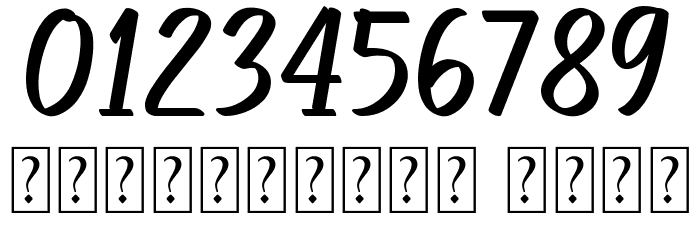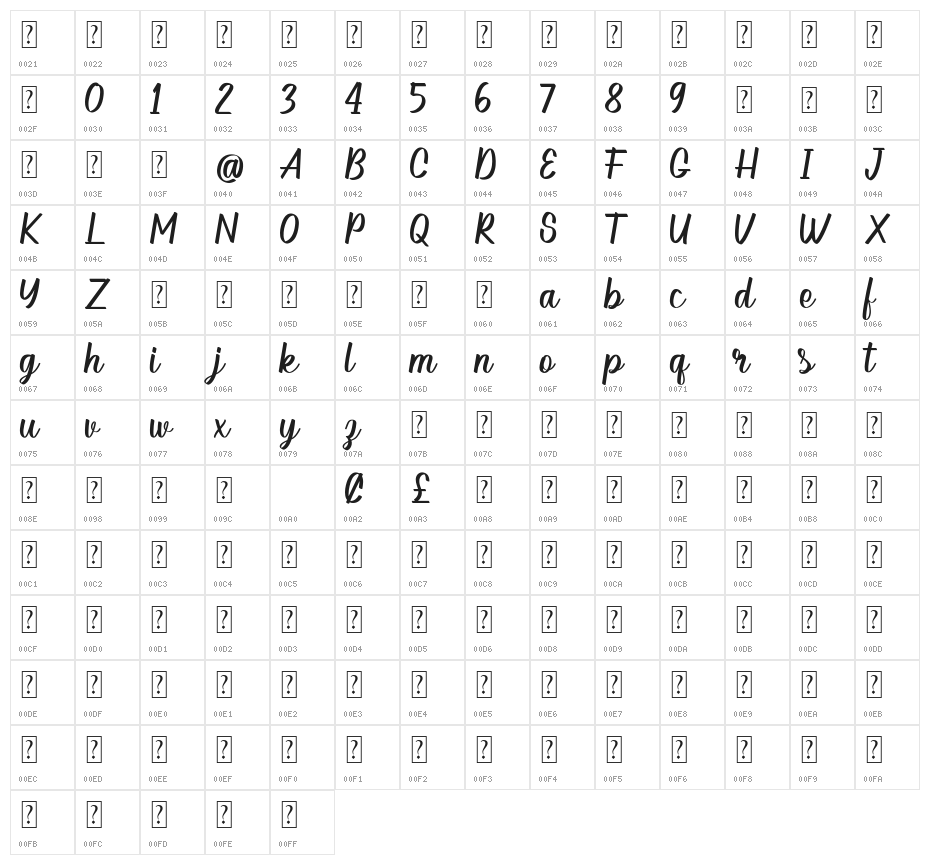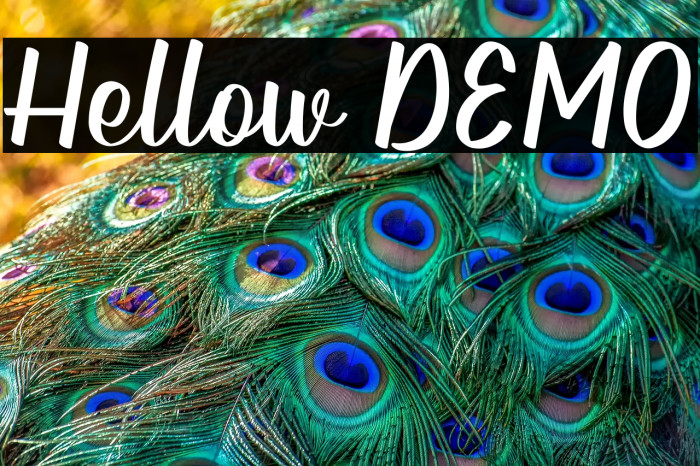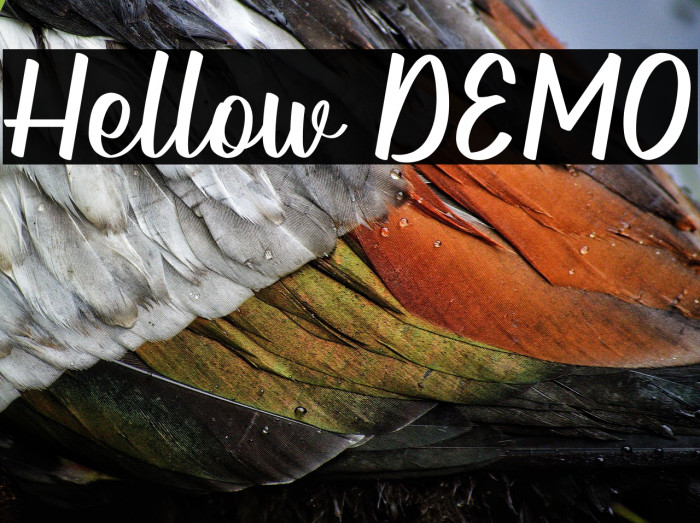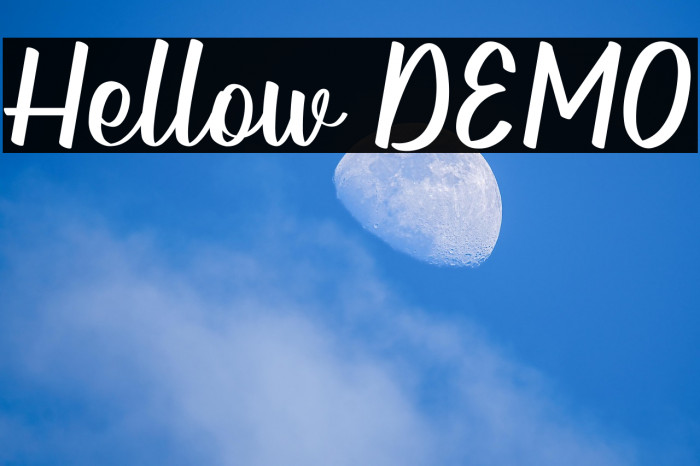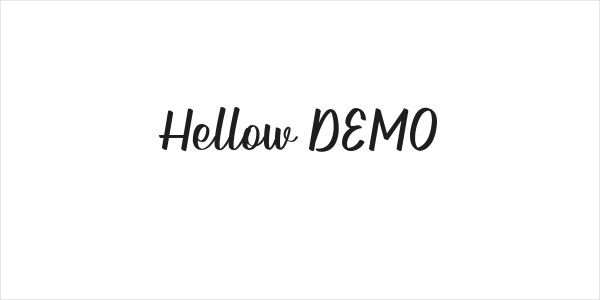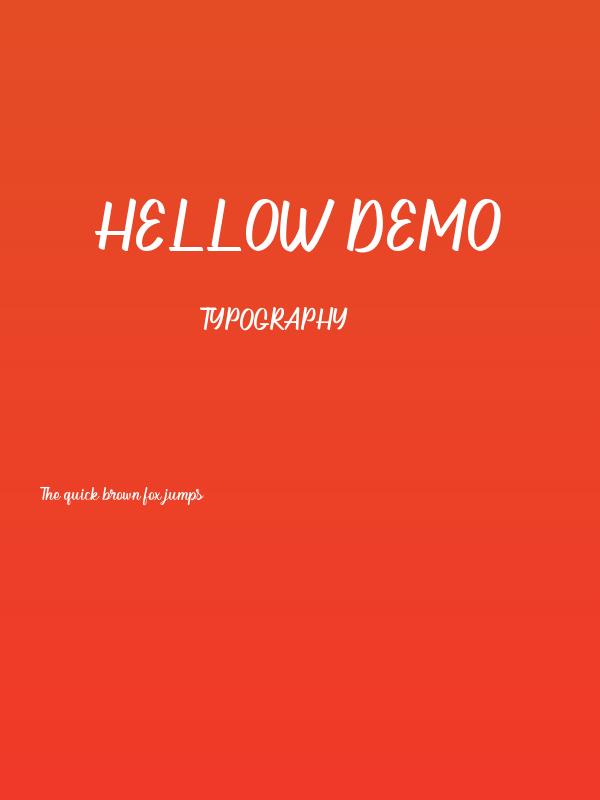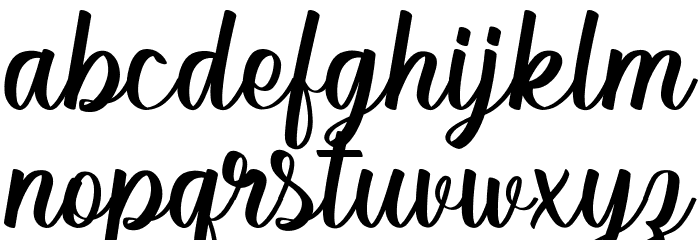
Hellow DEMO Font
Hellow DEMO Description
This font features a dynamic and flowing script style with a modern touch. The uppercase letters are bold and slightly slanted, giving a sense of movement and elegance. The lowercase letters maintain a consistent flow, with smooth curves and connections that enhance readability. Numbers are designed to match the overall aesthetic, with a slight slant and uniform thickness. The special characters are consistent with the script style, maintaining the same fluidity and elegance. This font is perfect for projects that require a personal and stylish touch.
| Proposed Projects | Ideal for wedding invitations, branding, social media graphics, and elegant packaging designs. |